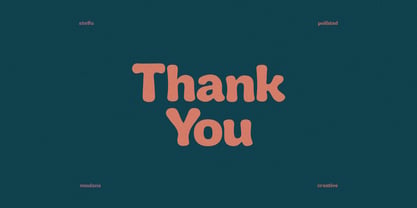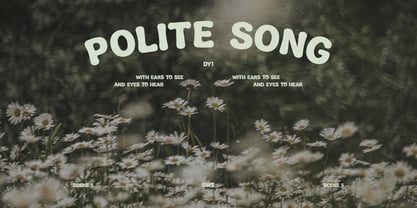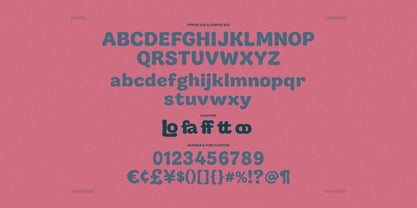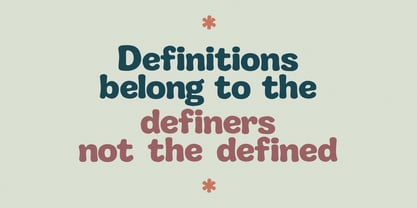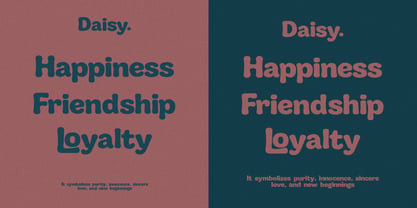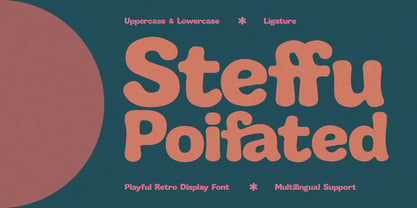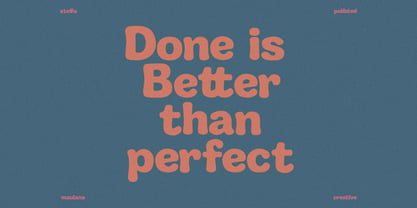
Steffu Poifated
par Maulana Creative
La famille de polices Steffu Poifated a été conçue par Gilang Maulana et publiée par Maulana Creative. Steffu Poifated contient 1 styles. En savoir plus sur cette famille
Steffu Poifated is a bold display typeface that brings a cheerful vintage charm to modern typography. Designed with rounded shapes, soft curves, and unique ligatures, this font captures a friendly and expressive aesthetic. Its thick strokes and bubbly forms make headlines, logos, and branding projects stand out effortlessly while maintaining a welcoming atmosphere.
Equipped with uppercase, lowercase, numbers, punctuation, ligatures, and multilingual support, Steffu Poifated offers great versatility for creative layouts. Whether crafted for editorial designs, packaging, social media graphics, poster art, or event branding, this typeface adds a nostalgic yet contemporary touch that elevates any visual presentation.
Concepteurs: Gilang Maulana
Fonderie: Maulana Creative